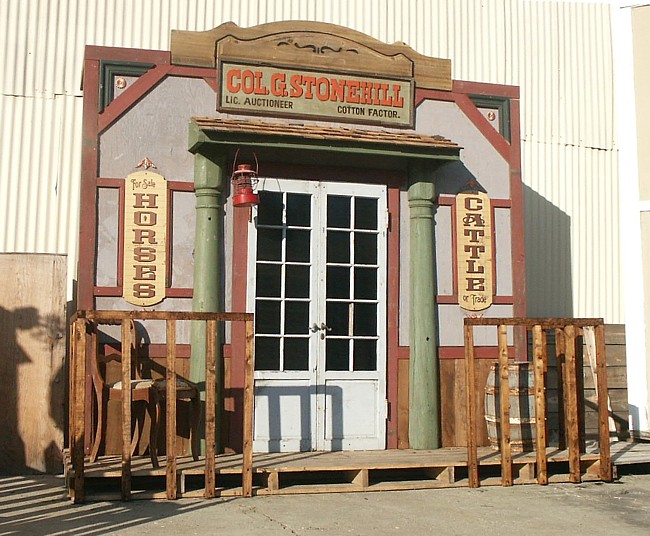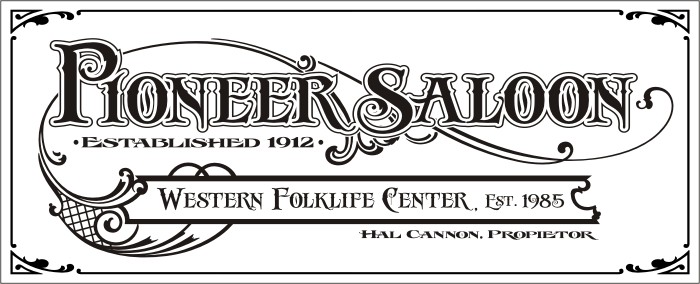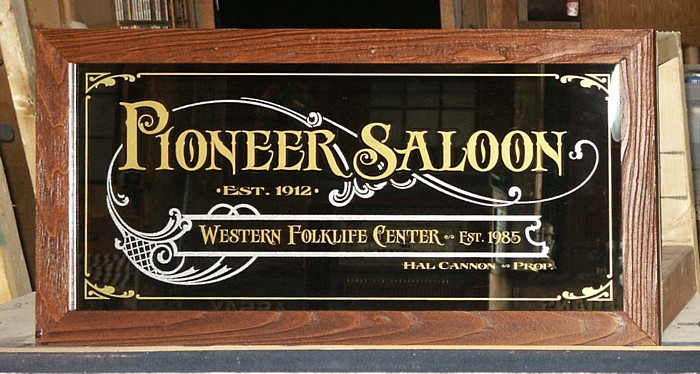
Original Dead Men
Anyone feel like vectorizing that one on page 1 ?...
before I dam well do it myself!
partially done..
...check your email Mr. White.
Dang Danny share the wealth.
I'll show you mine if you show me yours.. :shock:
Re: Original Dead Men
I wouldn't trust no words, written down on some forum...
especially from no Hazelwood....you're just as likely to
end up with a whole lotta nothin' !
... just yanking Mr. Blake's chain, as habit goes.
And after taking a call from one Town of Machine today, the town mayor was having trouble gettin his mail....
To quote Mr. Blake: I wouldn't trust no words, written down on some forum....you're just as likely to
end up with a whole lotta nothin' !
Got this little ditty framed up and ready for hanging.
This was a little side project I whipped together for
those boys at the Coon Hunt.
I also designed up this larger version,
I've got it in process...
Keep your lovin' brother happy.....
I was shooting Buffalo out of a window in my house, when a friend came round wearing a clown suit he got in Cleveland ( a seaside resort near Bristol U.K.)
He had with him a prtable Media drive so we plugged it into my TV and I found there was a film called
Dead Man. starring a Mr W. Blake and Nobody. Oh and Iggy Pop who is famous in the UK for sellin Insurance !
I dun watched the film, had my eyes opened so I came round here to say
AHO
When there's no work to do....might as well play.
I always was self-entertaining and I remain true to form.
Yet another building here in the Town of Machine....
Nice
At this rate Hollywood will be calling you Larry to use this place. great job as usual.
there he goes again...
buildin all those buildins so nobody know how scared he is.
Re: Original Dead Men
...Fear's a funny thing Jenco, can make a man strange
for the rest of his days....
Russ,
Keep 'em comin'...
Funny....kinda took you for a scratcher......
Sometimes I get the urge to scratch. Sometimes I get the urge to...vector. I saw your wish list and prepared to do a little vectorin' of my own.
This one has a total of six designs - the three that I already posted, and three more. One of these days I hope to make it back to the town of Machine and I'll need a project to work on.
Now ya see there.....
Just finished up this little gem, for a friend. Executed on a stock mirror.
Whipped out my Jackinson Main Street Collection, threw down some
obsolete Letterhead Font, sandblasted it from the backside,
3 tone paint fill and some aluminum flitters, framed it up, ready to ship!
Aho!
Nice.
I like it a lot.
My favourite colors.
Still in the learning phase ;-)